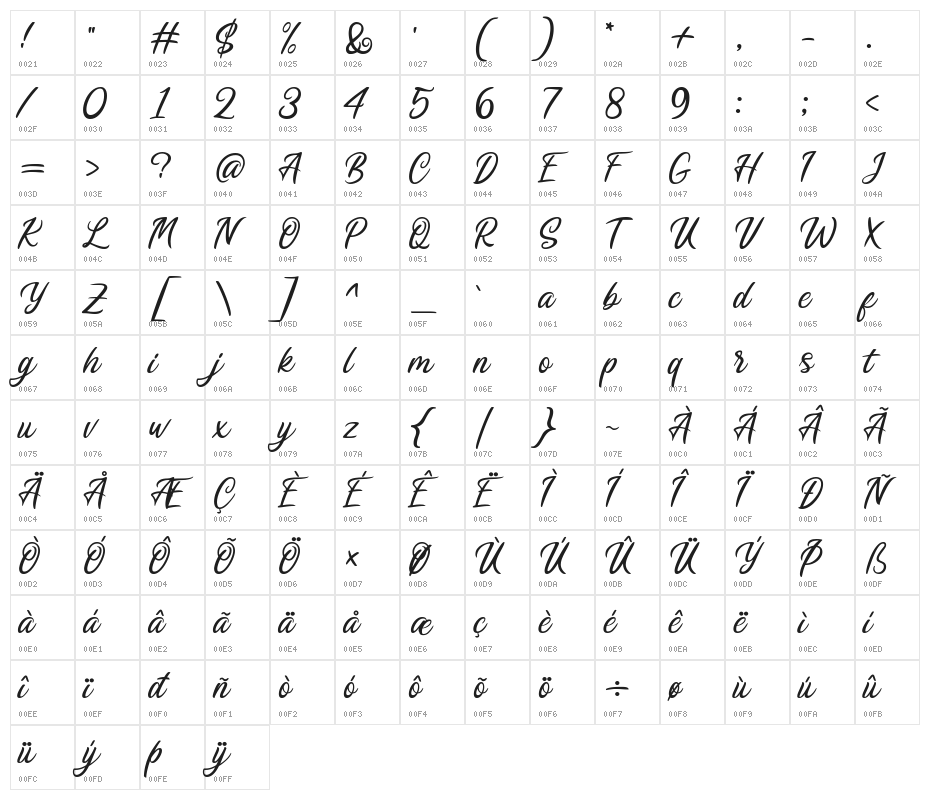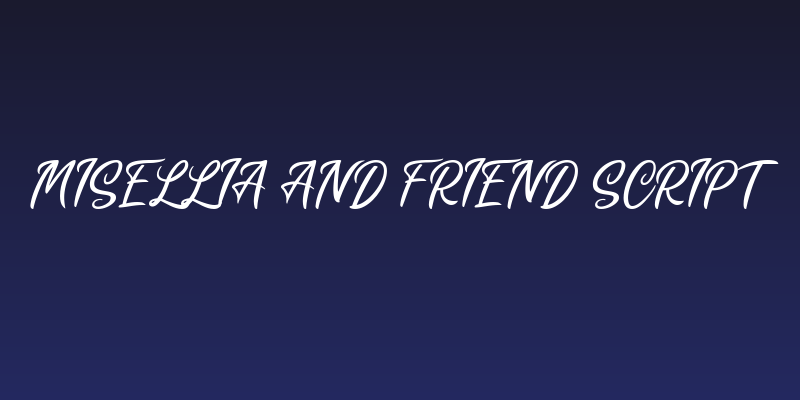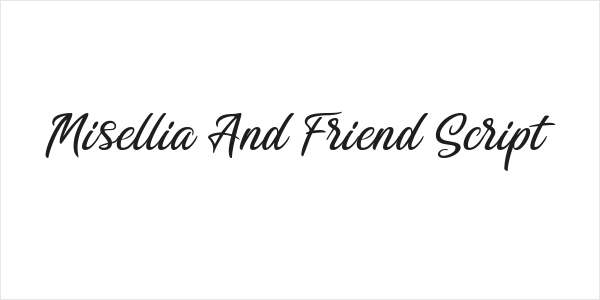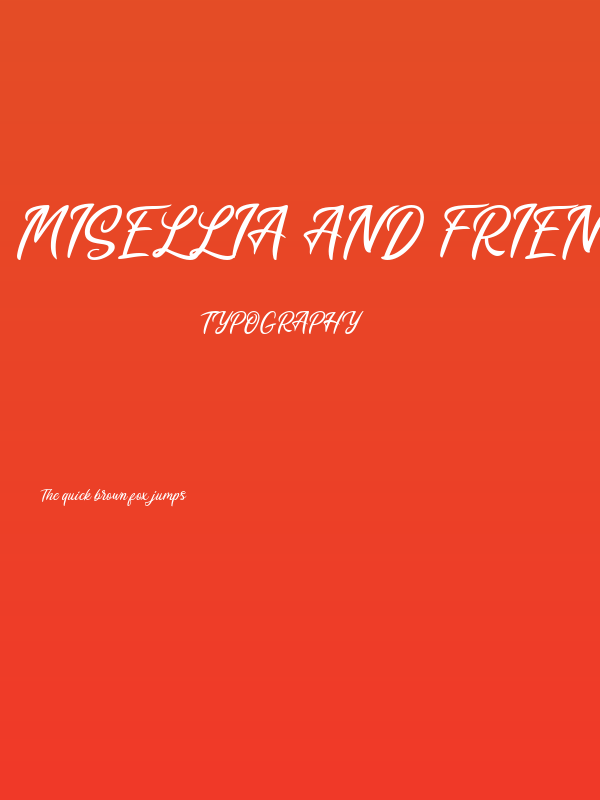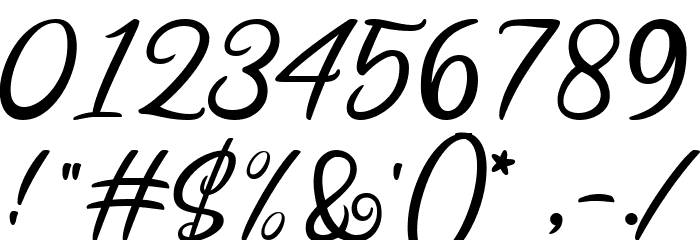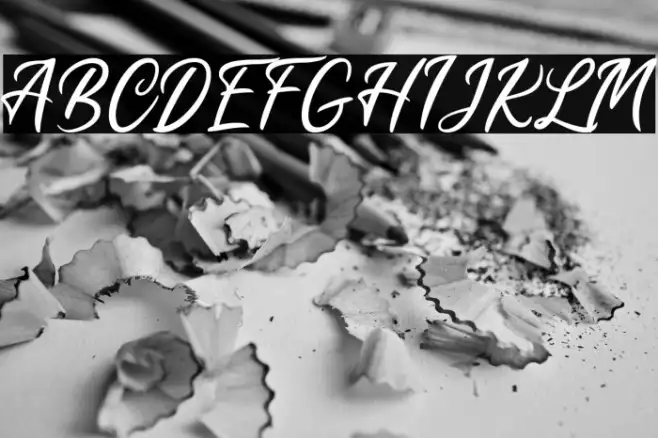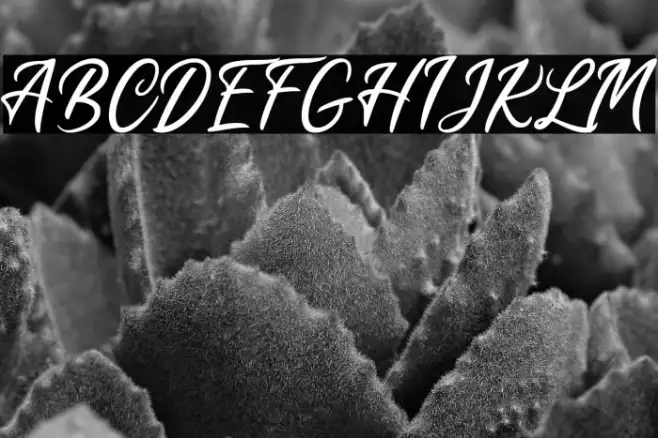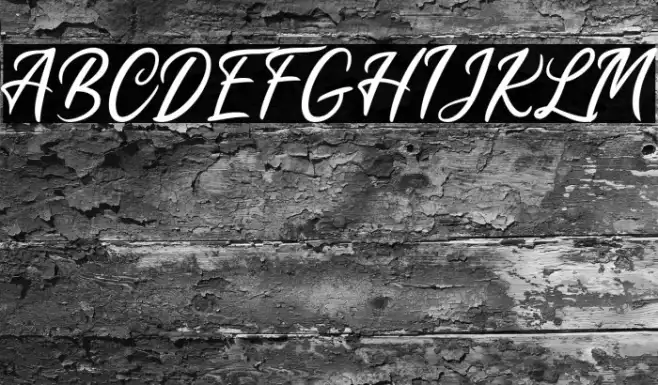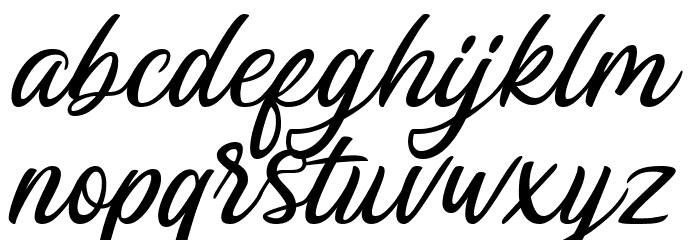
Misellia And Friend Script Font
Misellia And Friend Script Description
This font features a flowing, cursive style that exudes elegance and sophistication. The characters are interconnected, creating a seamless script that mimics natural handwriting. Each letter is crafted with smooth curves and a consistent stroke width, providing a harmonious and balanced appearance. The uppercase letters are slightly more elaborate, with graceful loops and swirls, while the lowercase letters maintain a more restrained yet fluid form. The numerals and special characters are designed to match the overall aesthetic, ensuring a cohesive look across all text. This font is perfect for projects that require a personal touch or a sense of refinement.